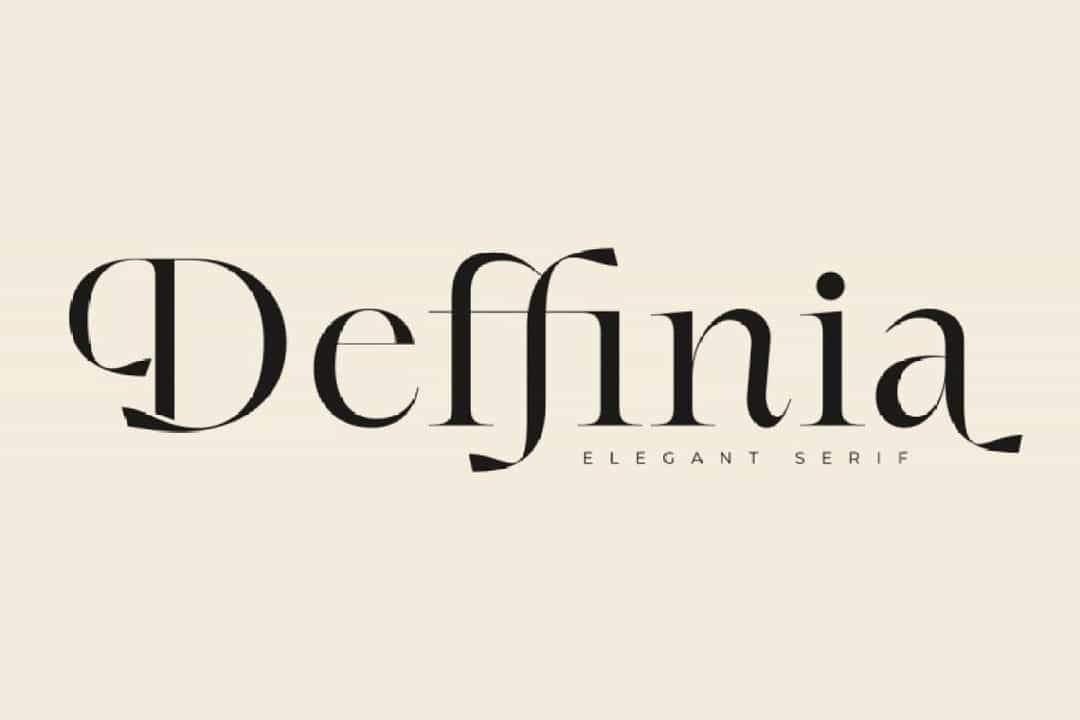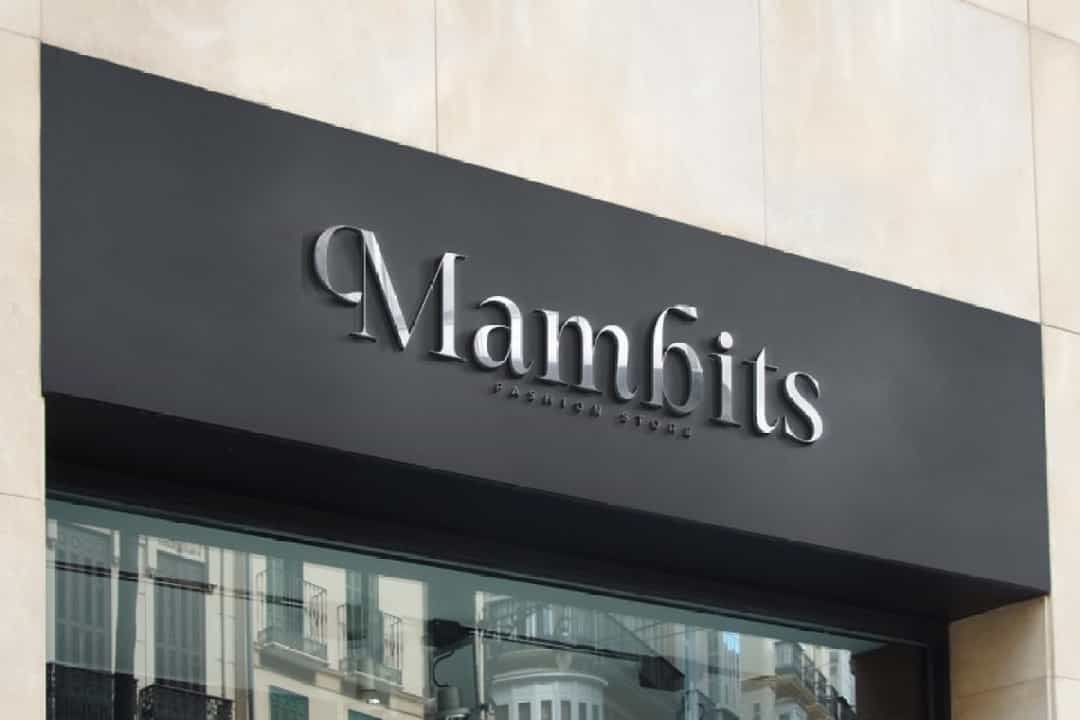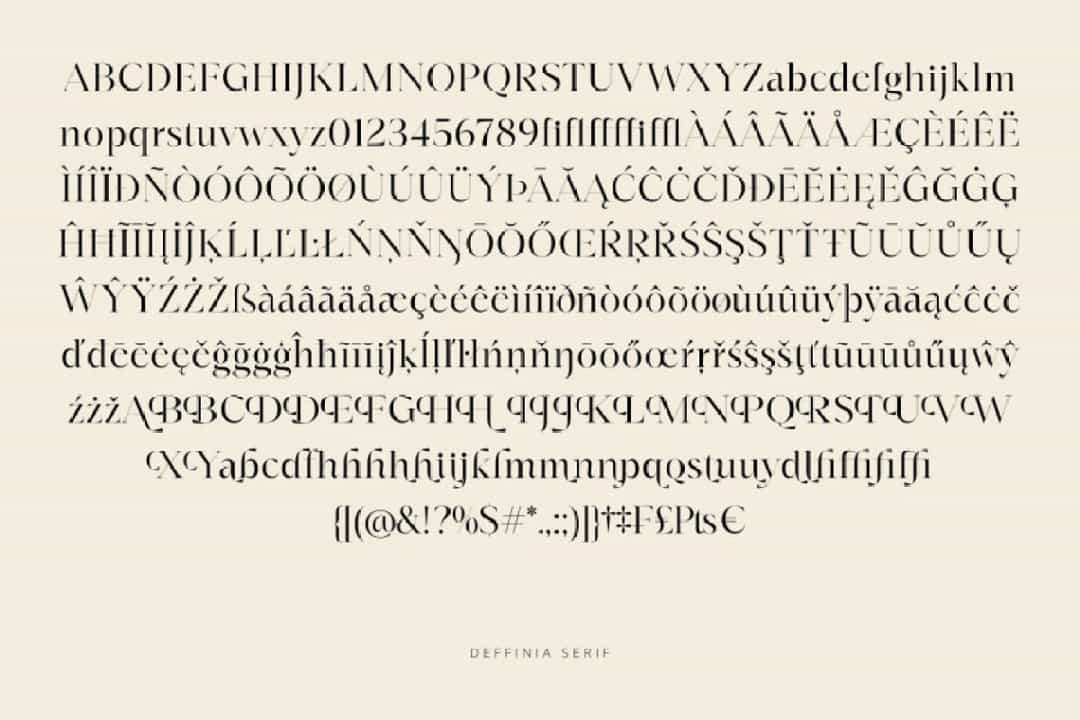
Deffinia is an elegant font with vintage flair that makes an impressionful statement in logos, trademarks, headlines and more. It supports Basic Latin Glyphs as well as various alternative fonts (and even certain ligatures) for creating unique designs while remaining connected globally without losing its old-school appeal.